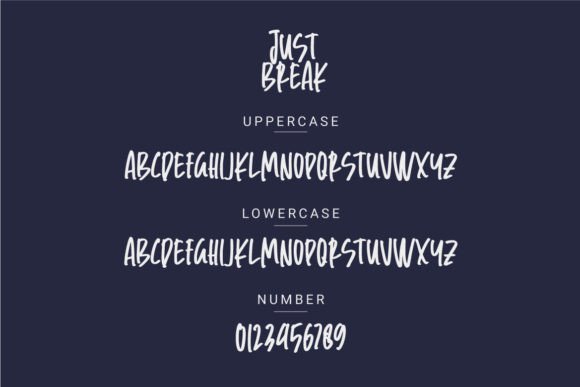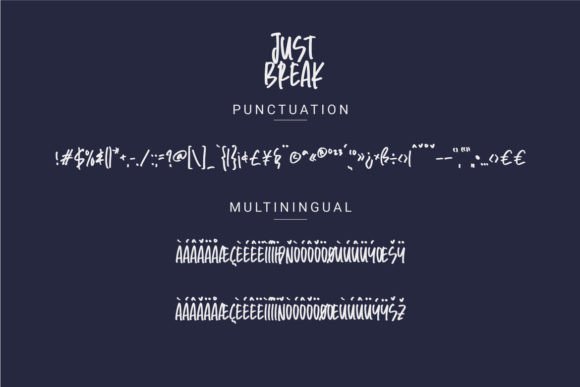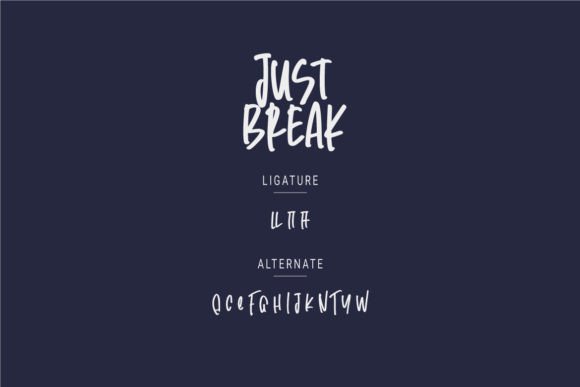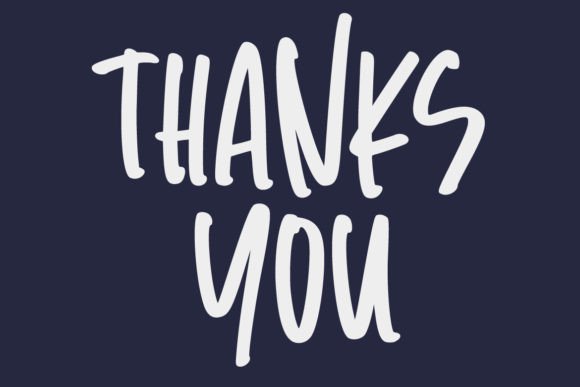
Introduction to Just Break Font
Just Break is a modern font that exudes a bold, edgy, and somewhat rebellious aesthetic.
The irregular, thick strokes and varying letter heights give it a handmade, almost graffiti-like quality The overall tone of the font is assertive, attention-grabbing, and contemporary.
Key Features of Just Break Font